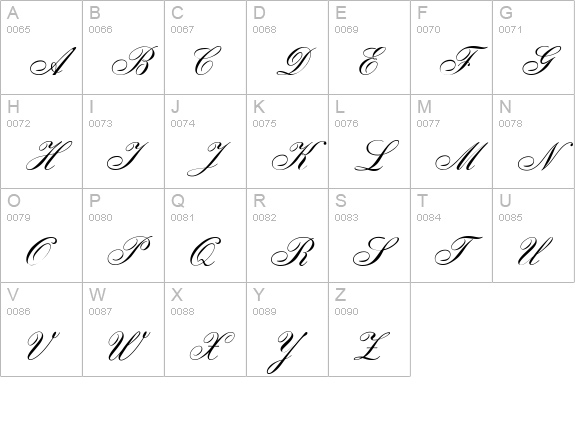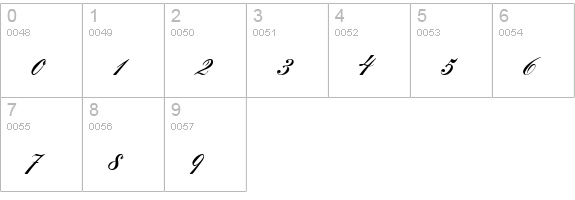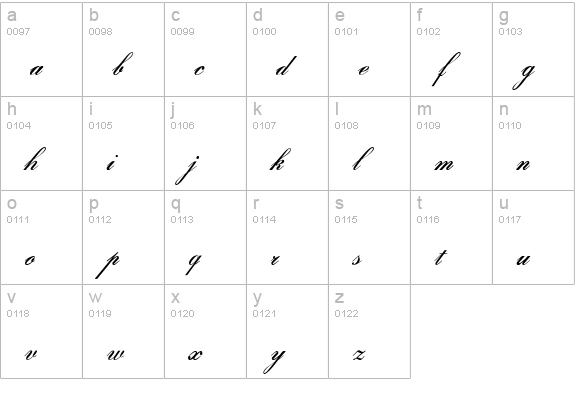
Gloria Font Details
Introducing Gloria font - a versatile and stylish typeface that exudes elegance and sophistication. With its clean lines and modern aesthetic, Gloria is perfect for a wide range of design projects, from branding to editorial design. This beautiful font features a unique combination of classic and contemporary elements, making it suitable for both formal and casual applications. What's even better is that Gloria font is completely free to download at FontsMarket.com! Yes, you read that right - you can access this stunning font at no cost and elevate your designs with its timeless appeal. Don't miss out on the opportunity to enhance your projects with Gloria font's graceful charm and effortless flair. Download it now and add a touch of refinement to your creations!